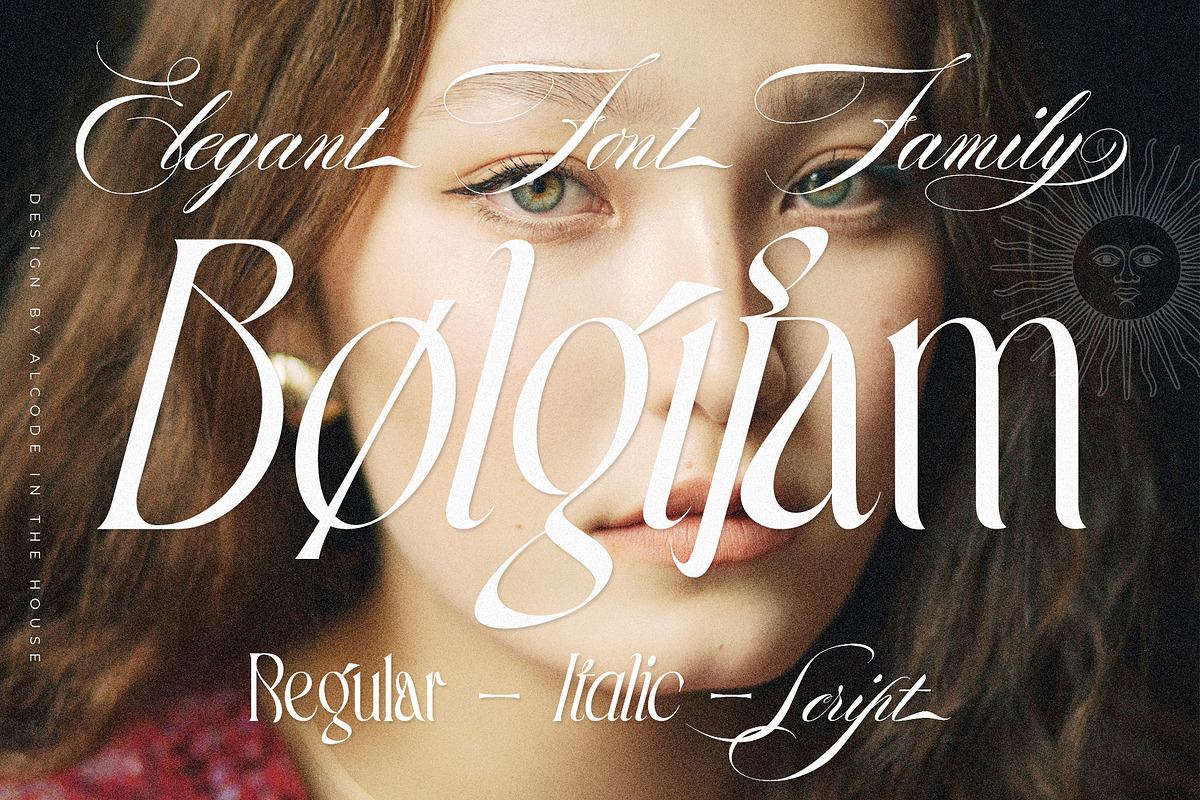
Please note, to use this font for commercial purposes, you must purchase the full version. Bolgifam is a versatile and stylish font family that combines modern design with unique character, offering multiple weights and styles for a wide range of design projects. Perfect for logos, branding, editorial designs, and more, this font family provides flexibility and sophistication. Whether you're designing for a corporate identity, a creative campaign, or a chic event, Bolgifam adds a professional and contemporary touch to your work. Test it out and enjoy free download access for personal use. Experience the diverse styles and elegance of Bolgifam Font Family Free Download before purchasing the commercial license. Add a modern, dynamic touch to your designs with Bolgifam.